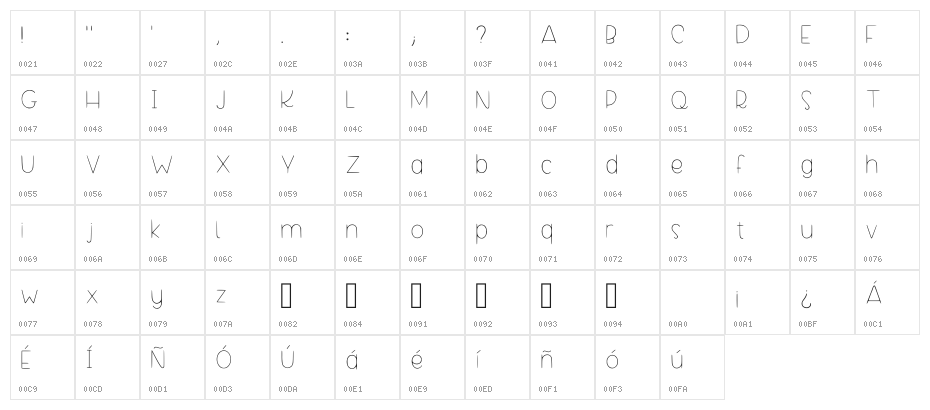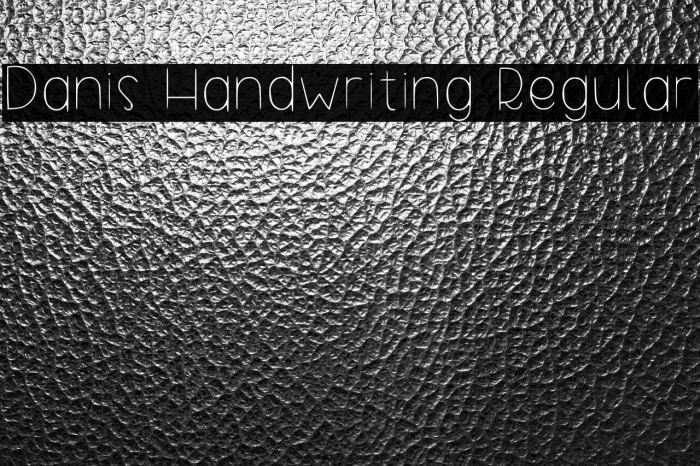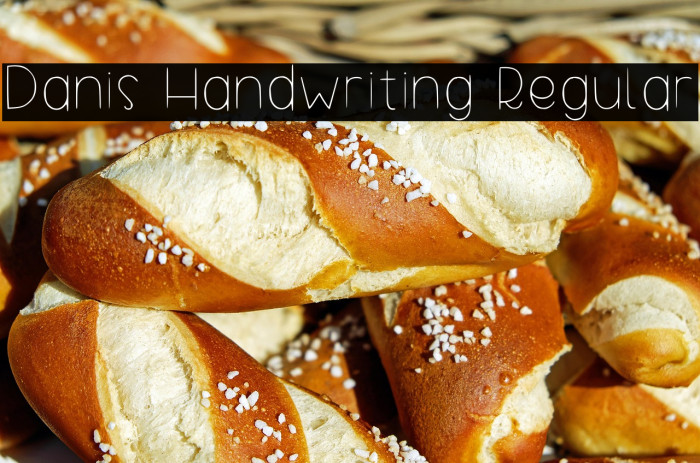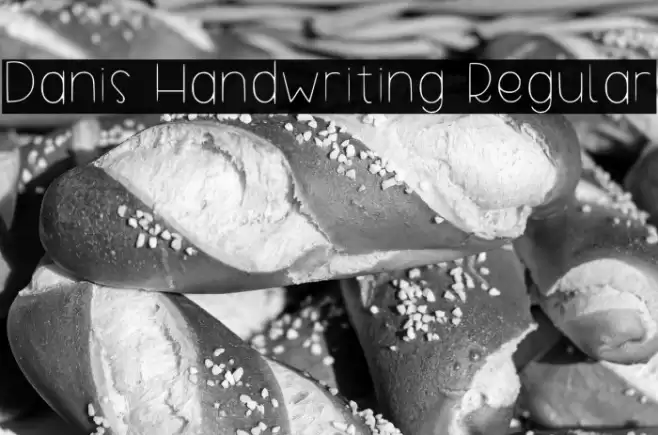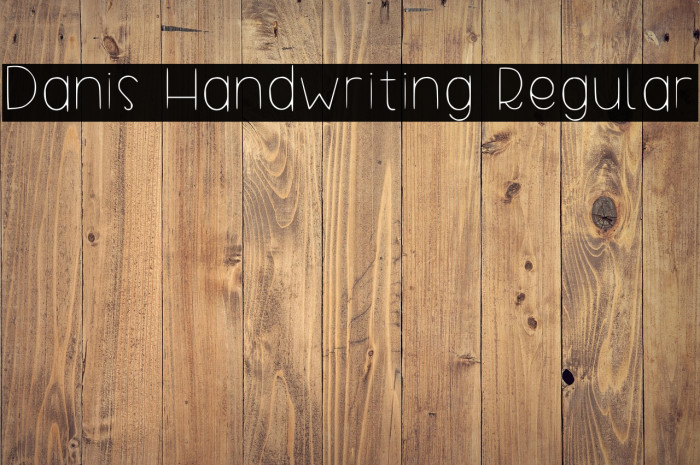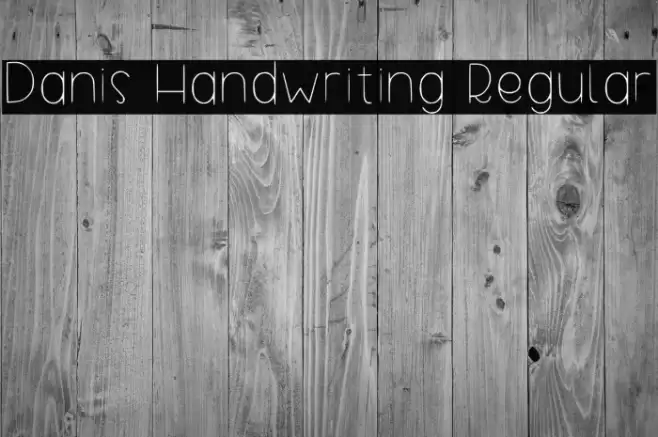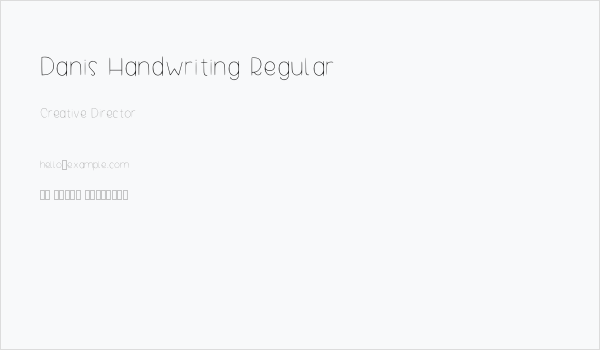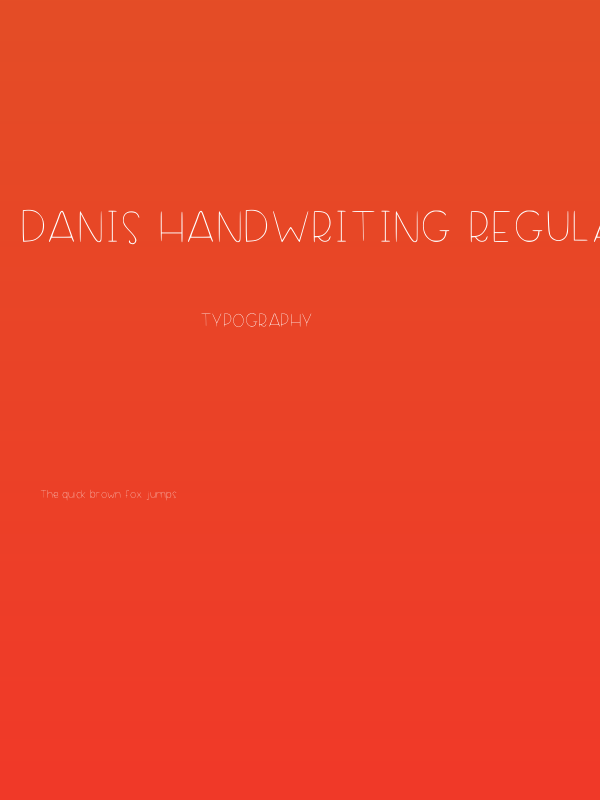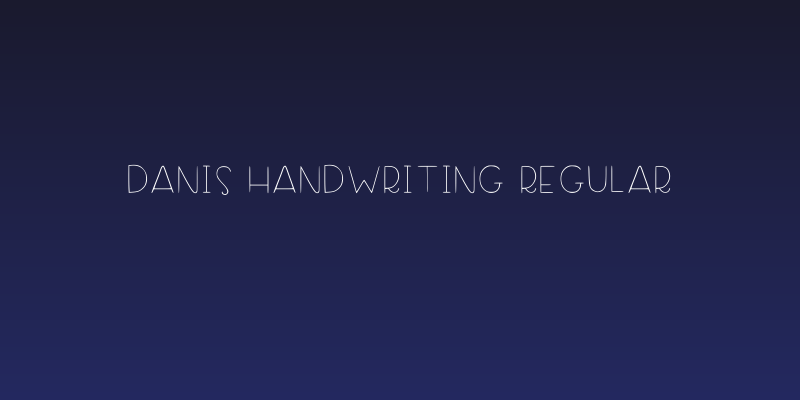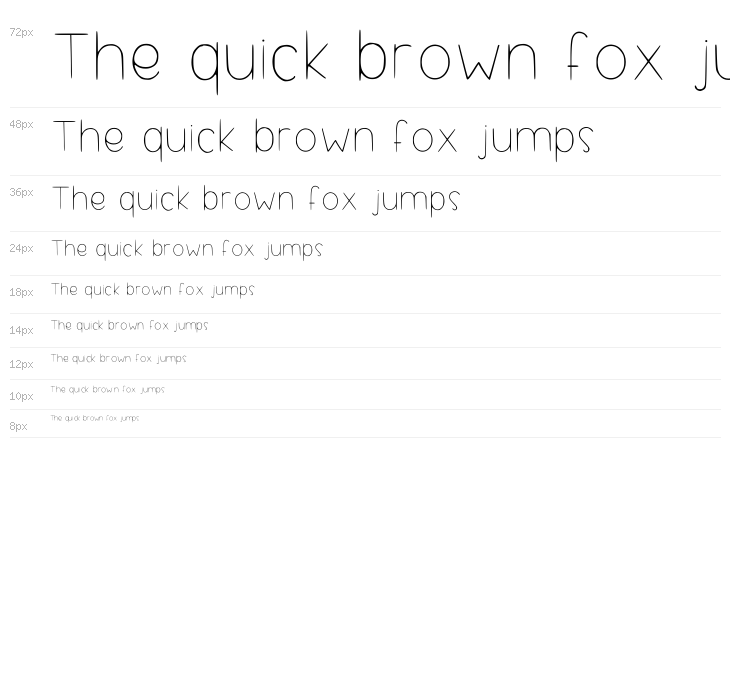
Danis Handwriting Regular Font
Danis Handwriting Regular Description
This font exhibits a casual, handwritten style with a playful and approachable demeanor. The characters are thin and elongated, giving a sense of elegance and simplicity. The uppercase letters are slightly taller than the lowercase, maintaining a consistent height across the alphabet. The strokes are uniform in thickness, contributing to a clean and modern look. The font includes basic punctuation marks, adding to its versatility. Its overall appearance is light and airy, making it suitable for projects that require a personal touch.
| Use Case | Headlines, Casual text, Invitations |
| Proposed Projects | Ideal for personal notes, invitations, greeting cards, and casual branding projects. |